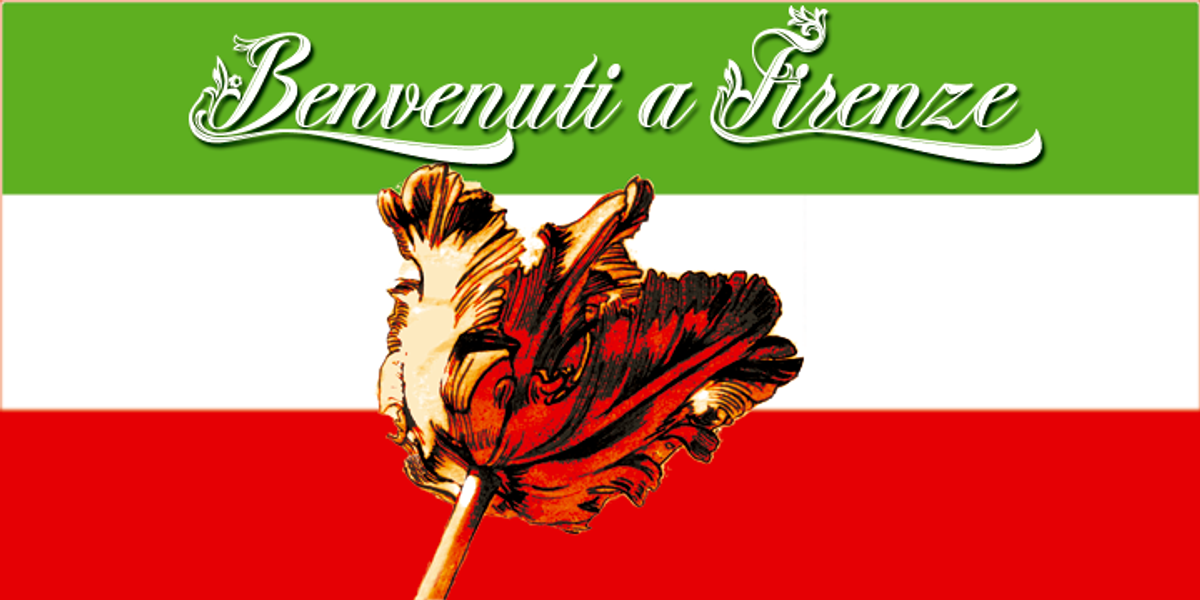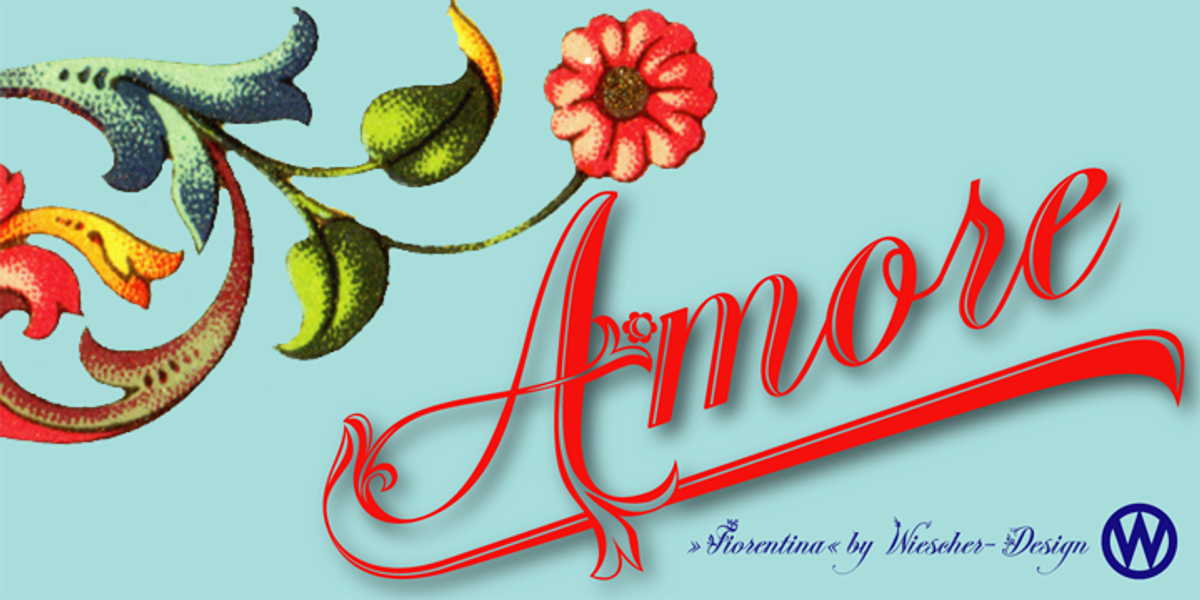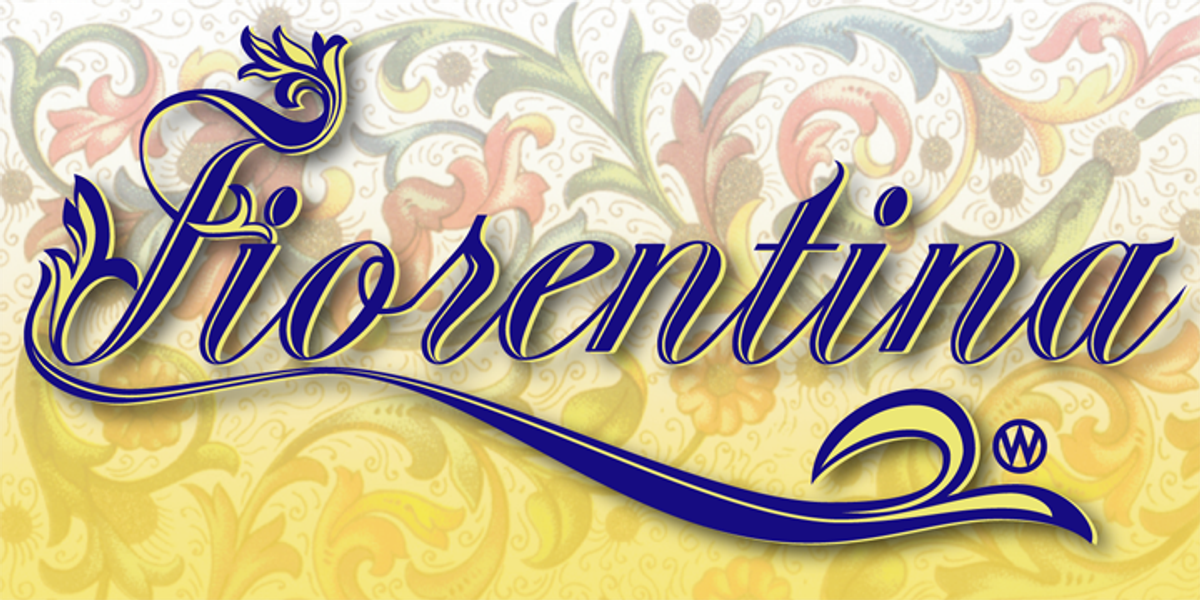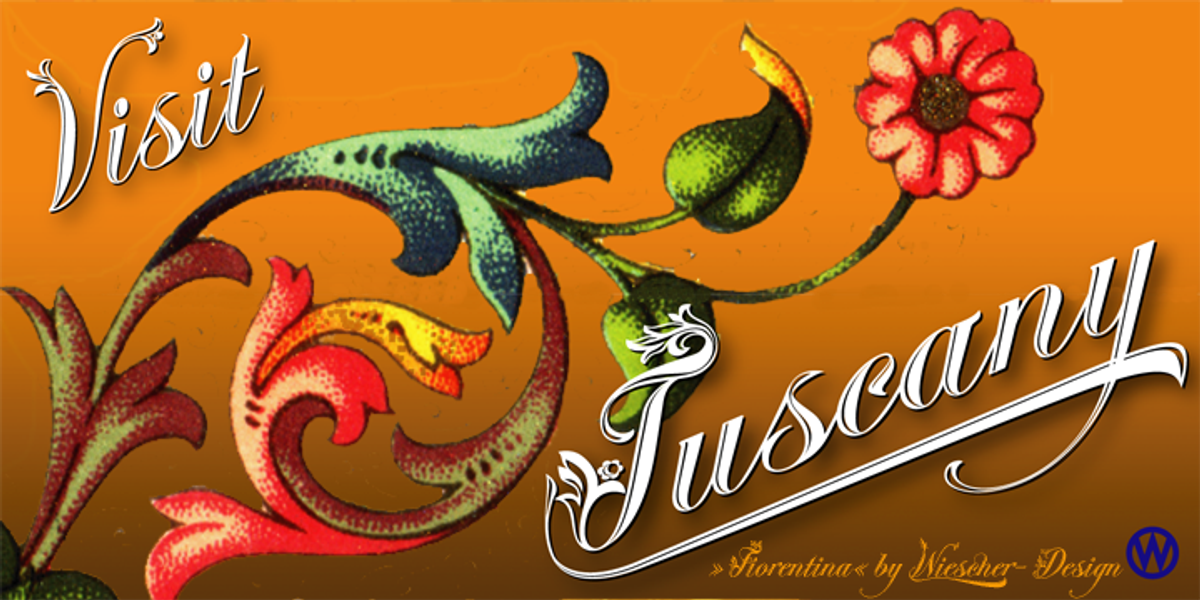
Fiorentina
Fiorentina is an elegant script font designed by Gert Wiescher. Inspired by colorful Florentine wrapping papers, it features a wealth of swashes and understrokes, along with alternate uppercase and lowercase characters. The font supports all accents for European languages, Baltic, Romanian, and Turkish. With its abundant embellishments and formal calligraphic style, Fiorentina is well-suited for wedding invitations and other projects requiring a touch of Renaissance elegance.